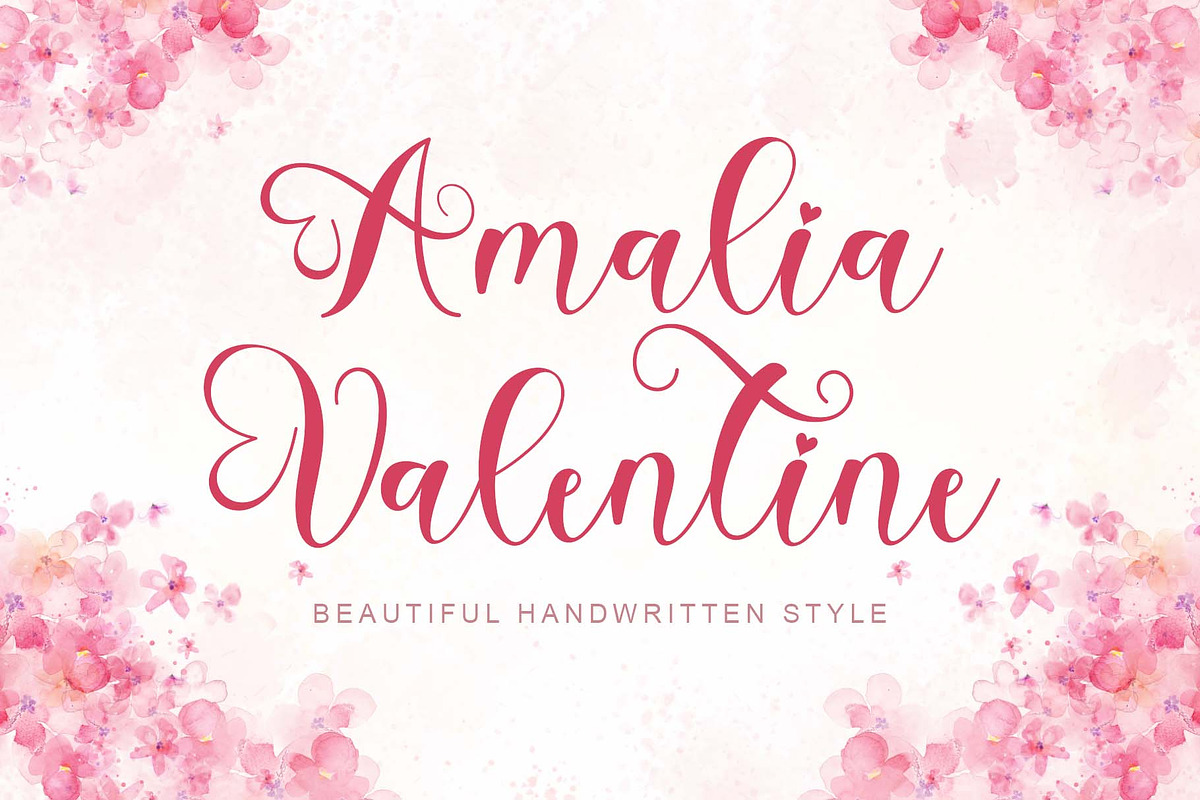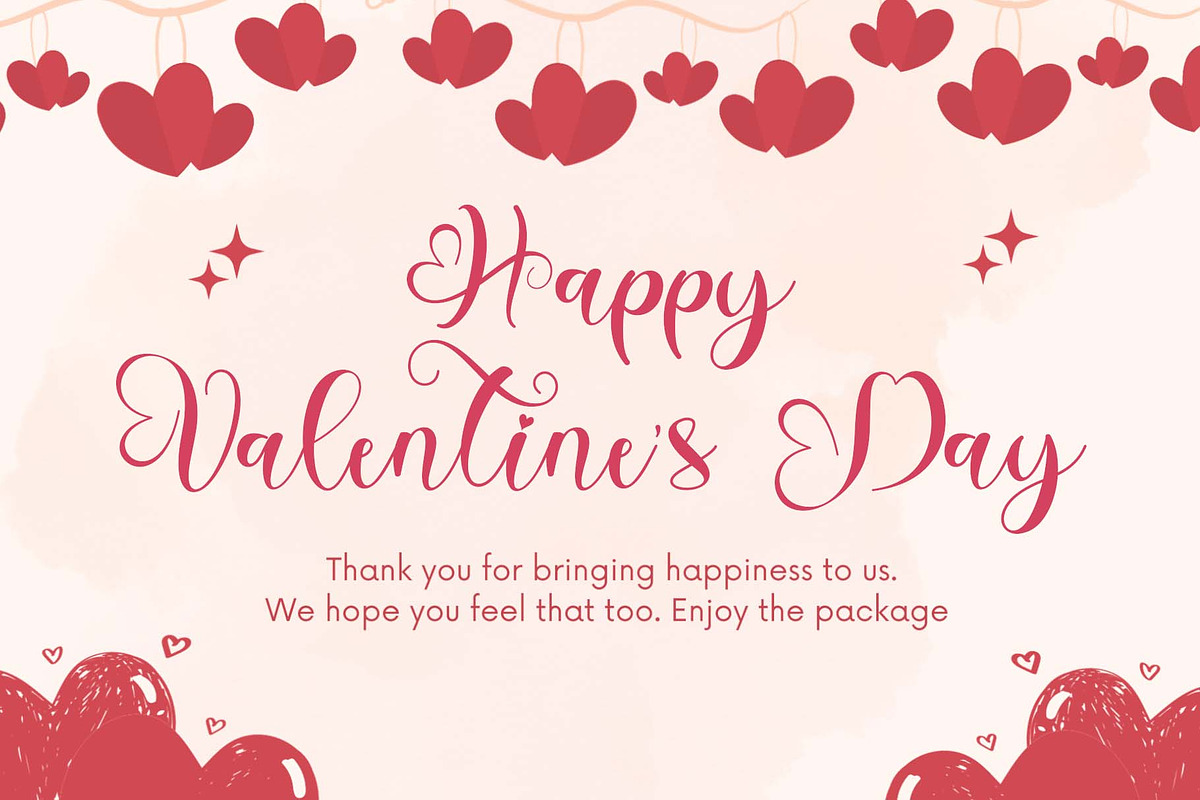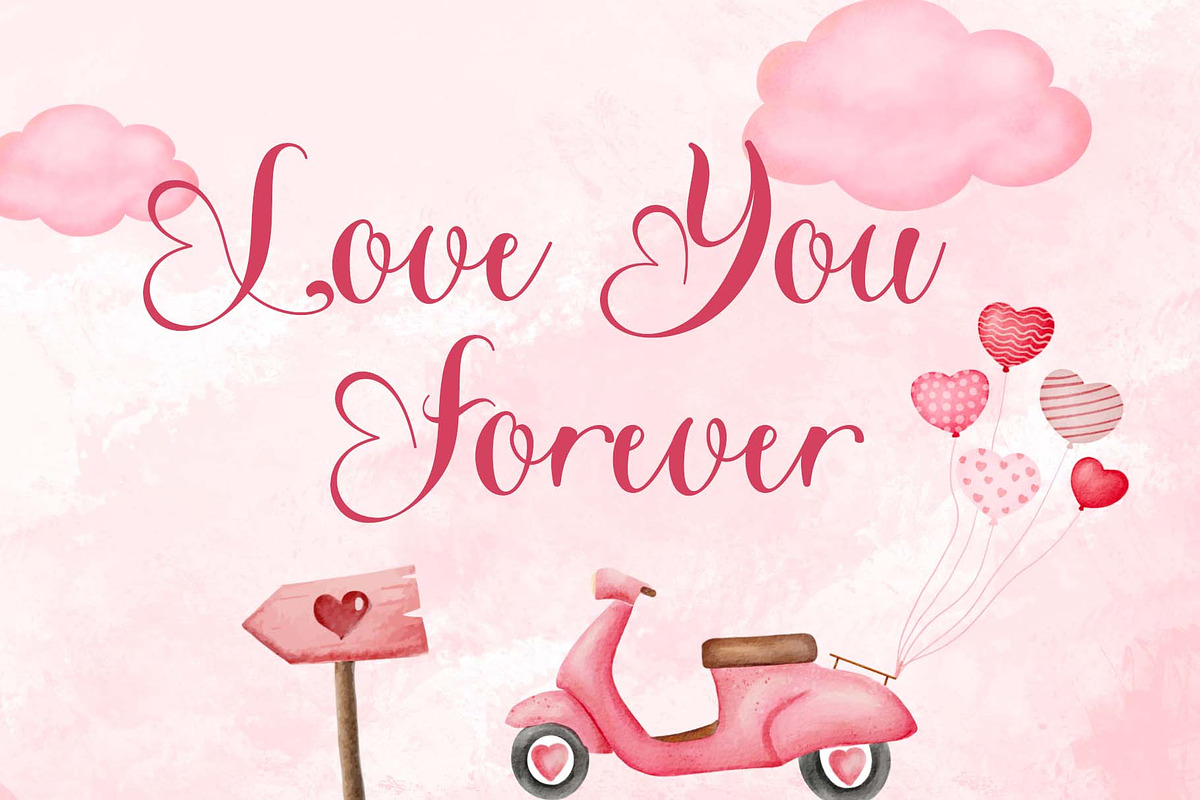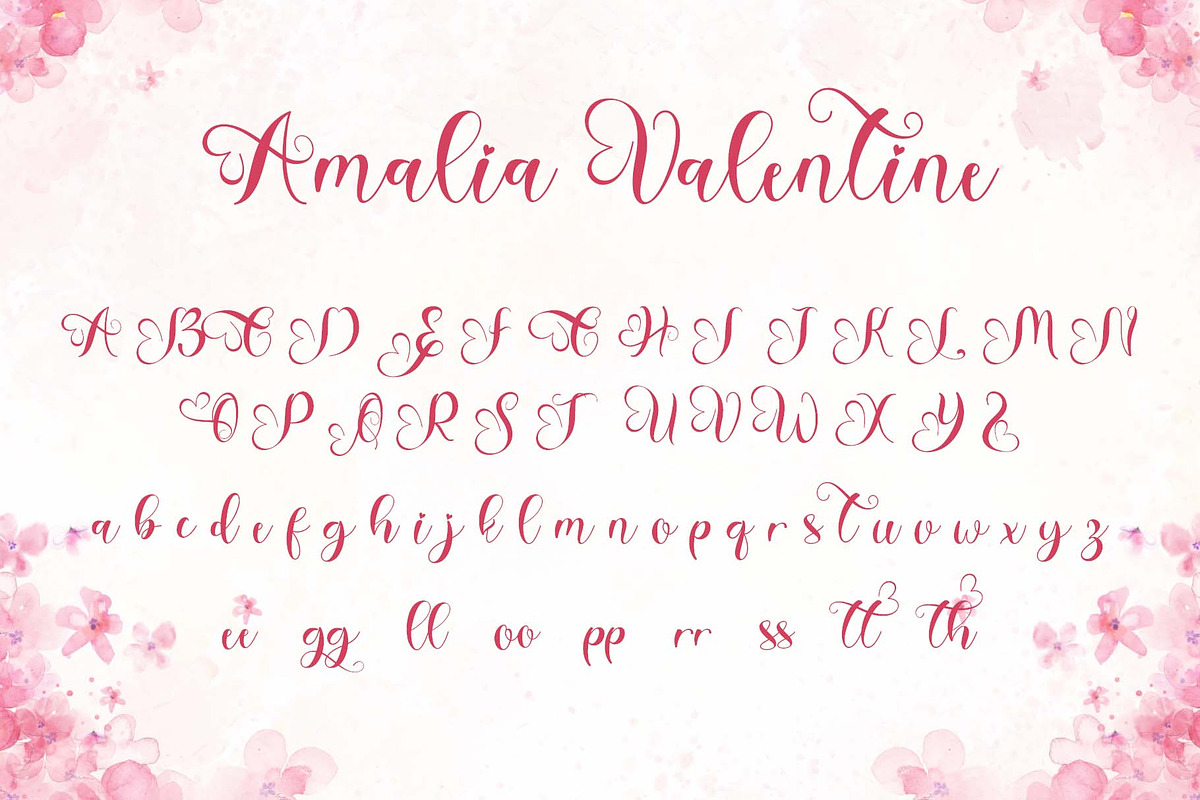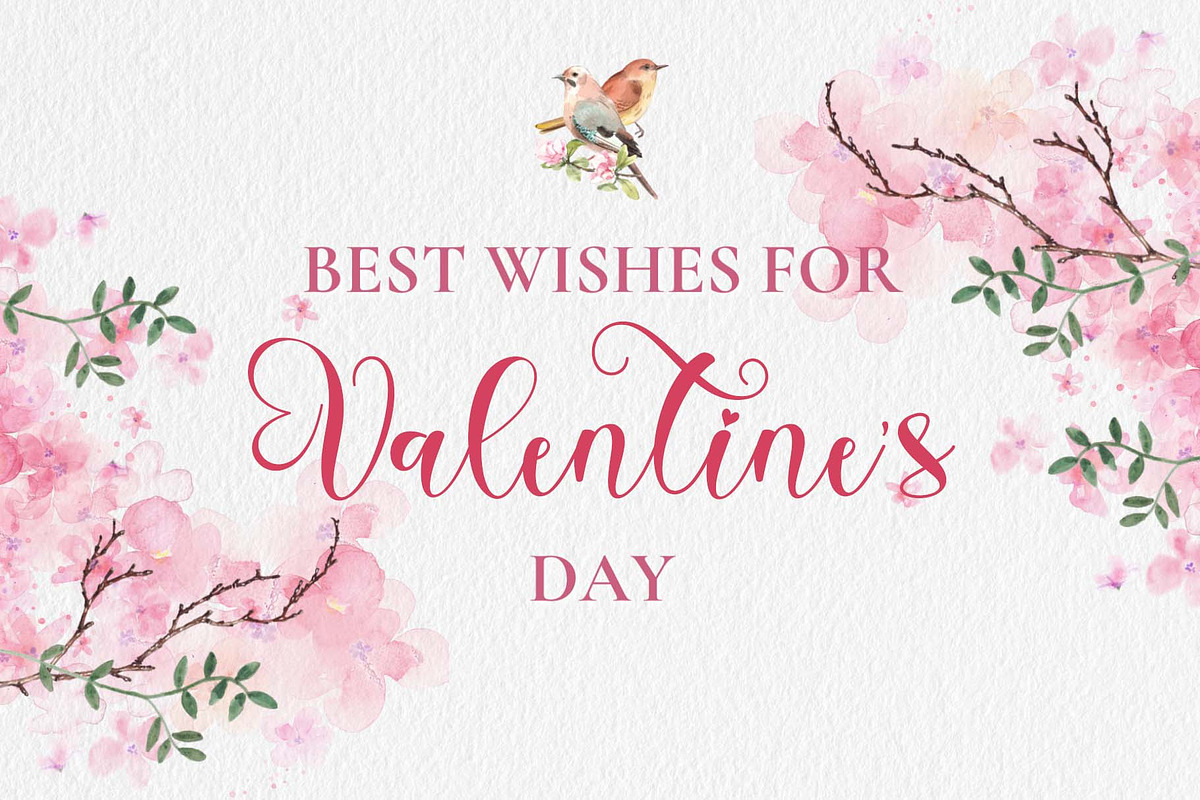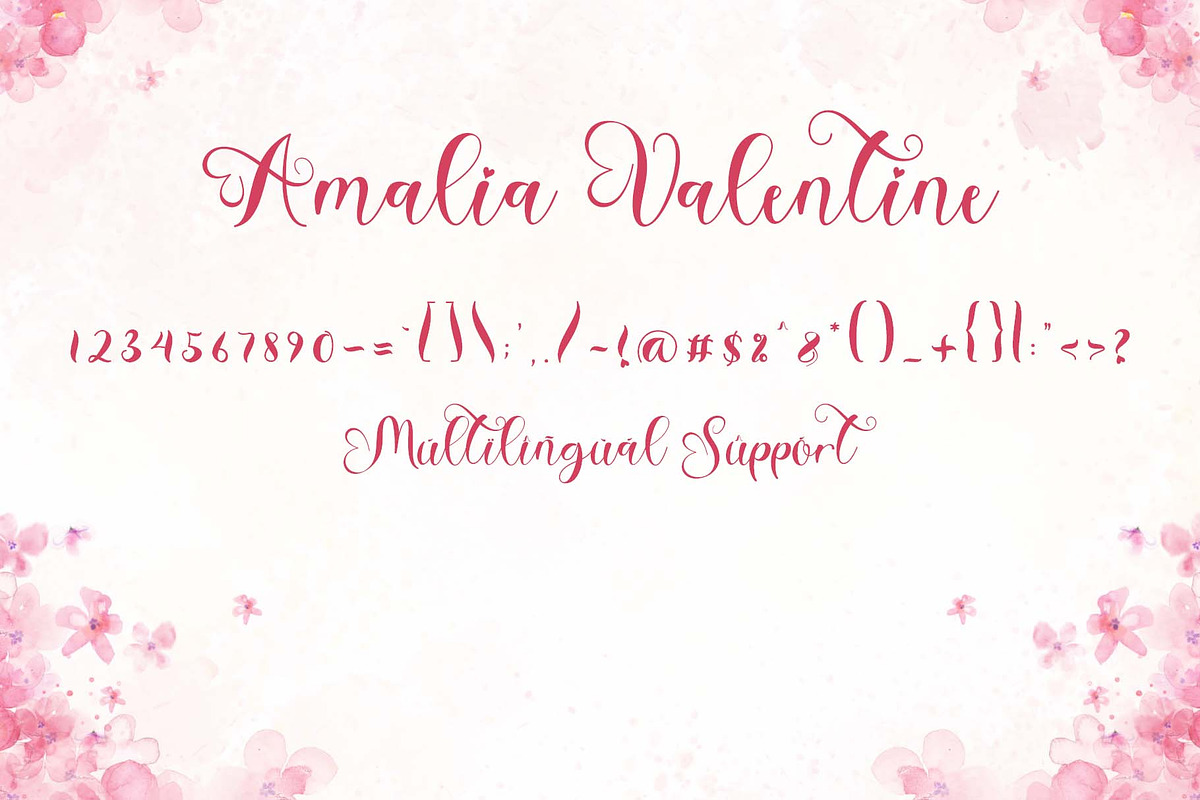
Amalia Valentine
"Amalia Valentine" is a beautiful and cute handwritten font. This font is equipped with uppercase, lowercase, numerals, punctuations, and multilingual support. It is very suitable for valentines, weddings, engagements, invitations, spring, winter, mugs, stickers, banners, branding, posters, and others.